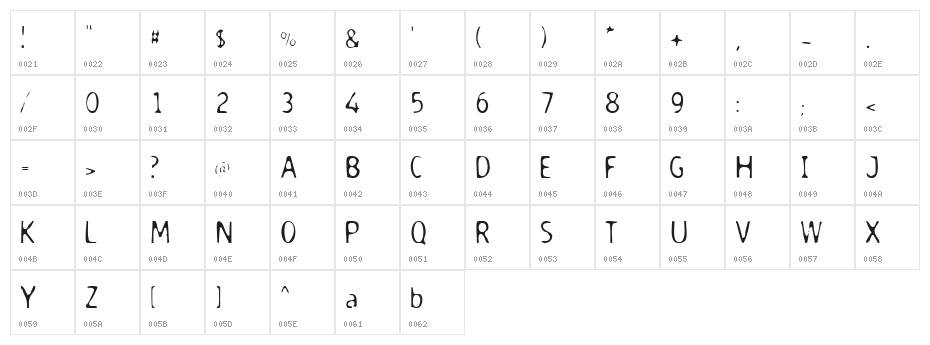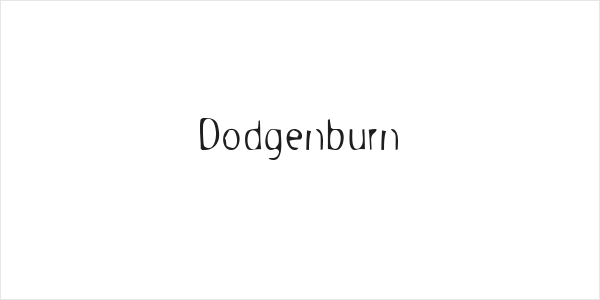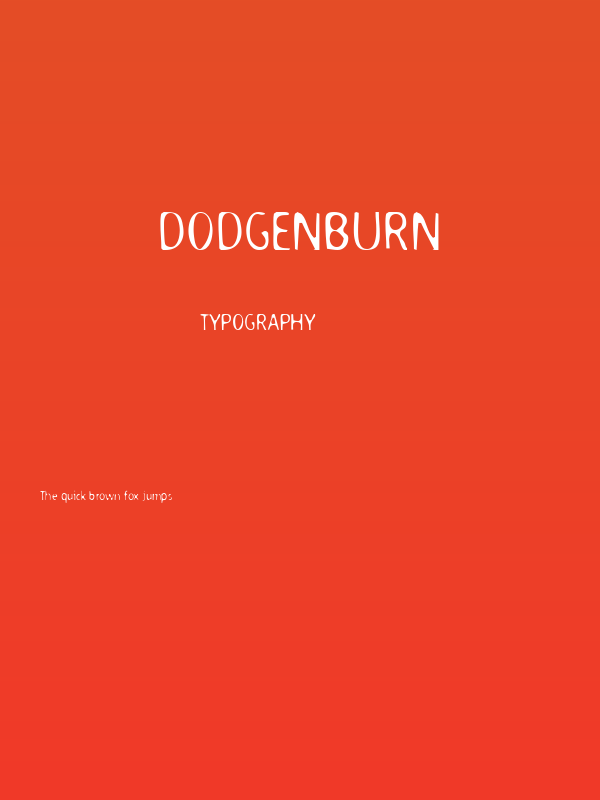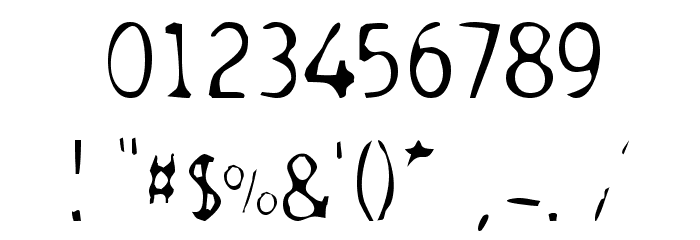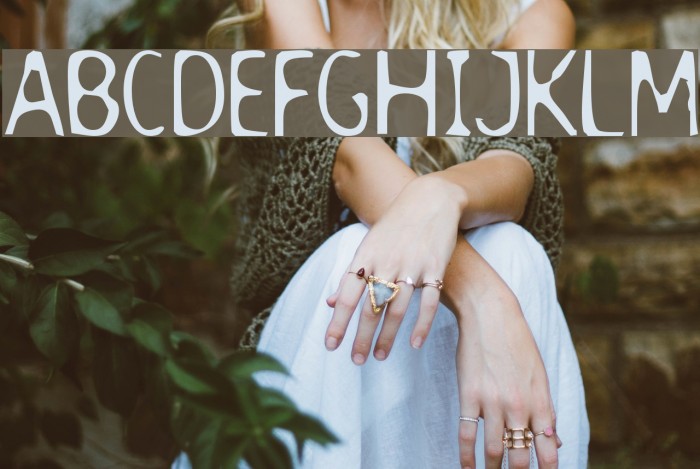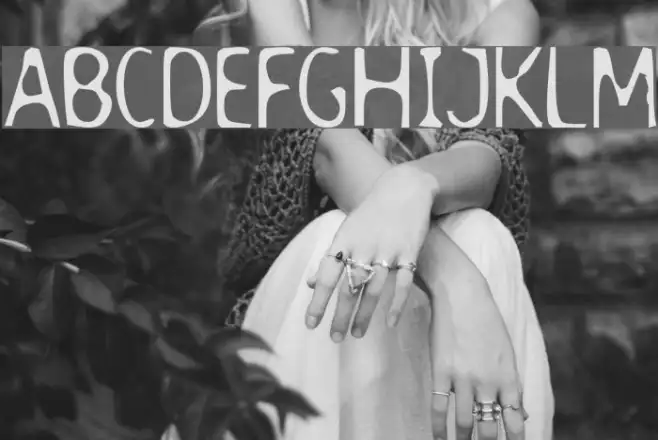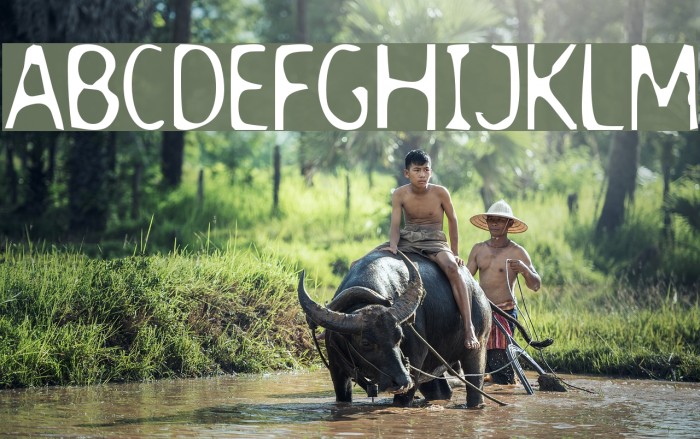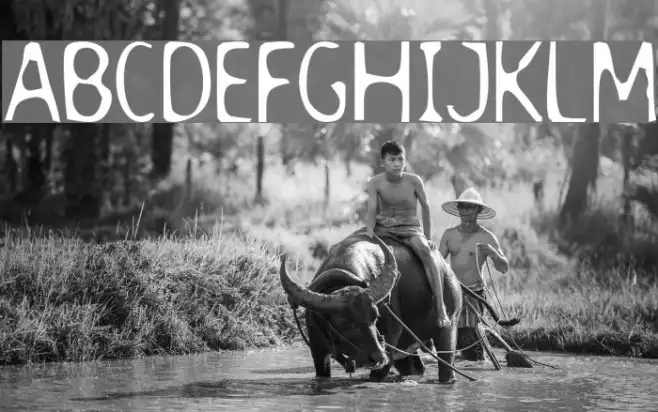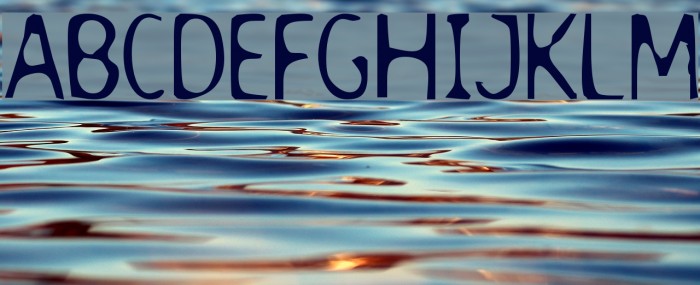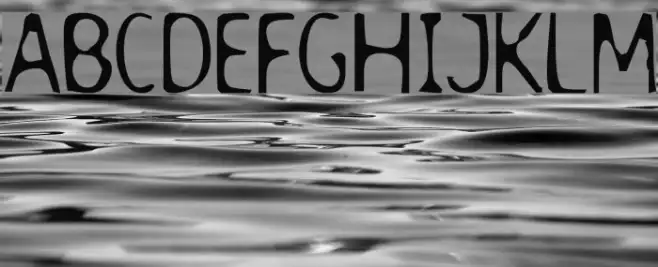
Dodgenburn Font
Dodgenburn Description
This font features a unique and artistic style with a hand-drawn appearance. The characters have an irregular, organic shape, giving them a whimsical and playful feel. The uppercase letters are bold and slightly elongated, while the lowercase letters maintain a consistent height with a more compact form. The numbers and special characters follow the same artistic style, adding to the font's cohesive look. The overall design is reminiscent of a handcrafted or brush-stroke effect, making it stand out with its distinct personality. This font is ideal for projects that require a creative and informal touch, such as children's books, posters, or artistic branding.
| Overall Style | Artistic, Whimsical |
| Use Case | Headlines, Artistic projects, Informal designs |
| Proposed Projects | Ideal for children's books, artistic posters, creative branding, and informal designs. |